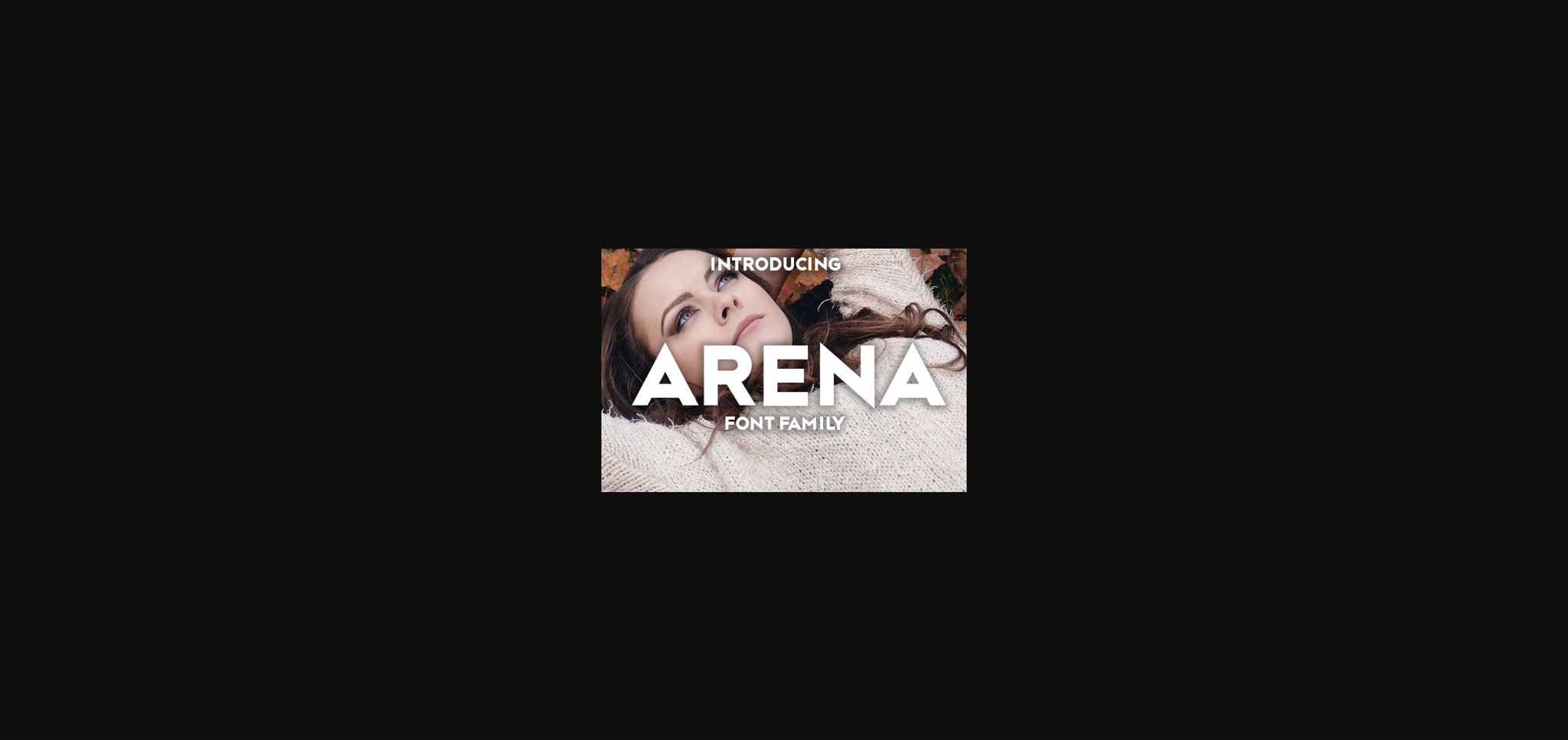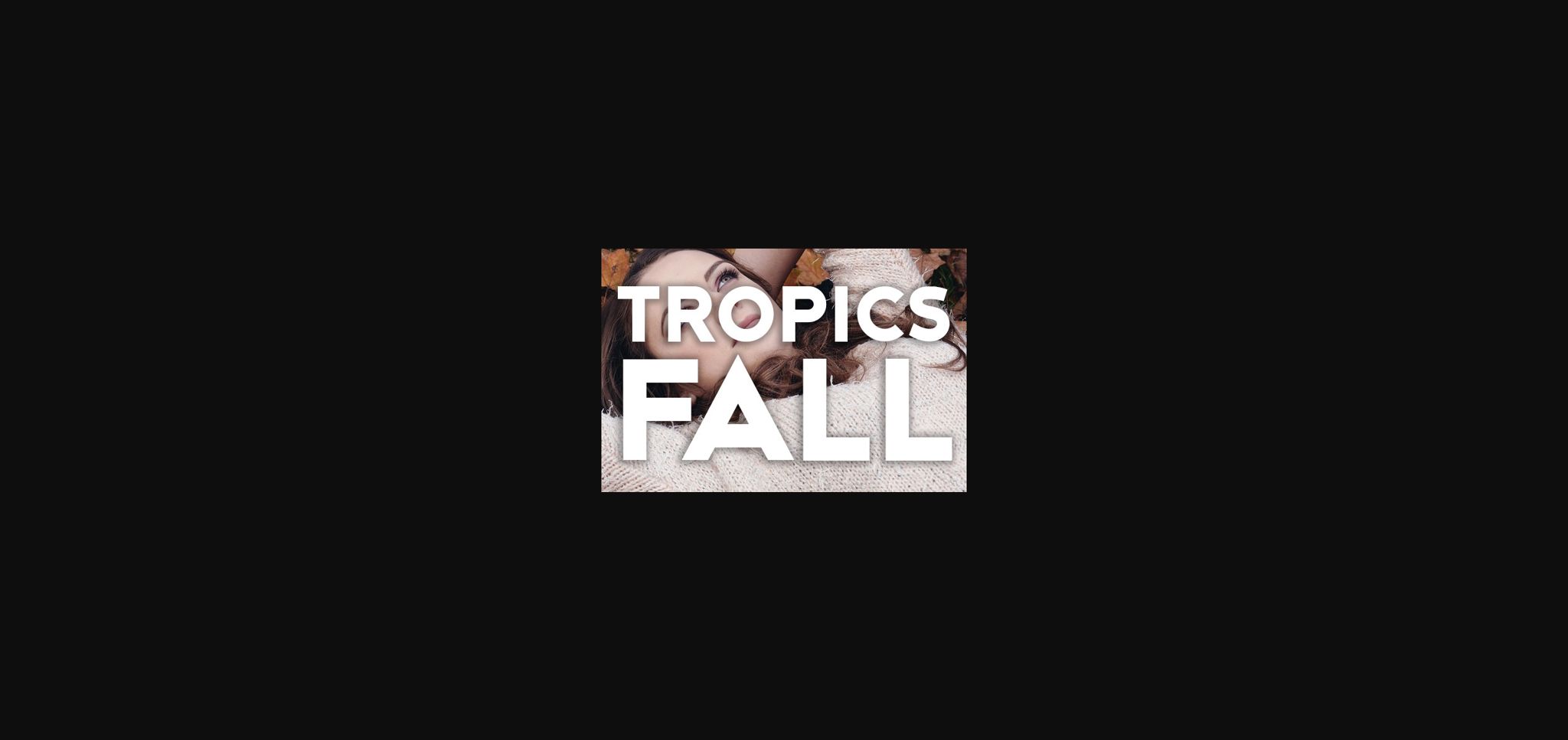
HomeSans Serif FontsArena Font Sans Serif Fonts Arena Font FacebookXPinterestWhatsApp 1 of 5 ... Arena Font Poster 2... Arena Font Poster 3... Arena Font Poster 4... Arena Font Poster 5... About Arena Font Arena is a sleek and professional looking sans serif font. Add it to your creative projects and notice how it makes them stand out! DOWNLOAD NOW People also explored Dix-neuf Font Bloody Pumpkin Font Veria Font Hey Butterfly Font Jasper Font Mouse Font Sunlight Script Font Winter Holiday Font Back to School Font 434 0 TagsArenaArena Font Previous articleVogua FontNext articleBlock Koredor Font LEAVE A REPLY Cancel reply Comment: Please enter your comment! Name:* Please enter your name here Email:* You have entered an incorrect email address! Please enter your email address here Website: Save my name, email, and website in this browser for the next time I comment. Personal Use Free Boronic Personal Use Free Read more about this font Satori Personal Use Free Read more about this font Pouline Personal Use Free Read more about this font Special Day Personal Use Free Read more about this font BLOG Top 10 Handwritten Fonts That Elevate Your Designs Top 10 Handwritten Fonts That Will Elevate Your Designs Handwritten fonts bring a warm, personal touch to every creative project. Whether you're designing logos, invitations,... Elegant Wedding Invitation Fonts – Handwritten & Script Fonts Exploring Font Trends The 10 Best Handwriting Fonts to Add Personality to Your Designs